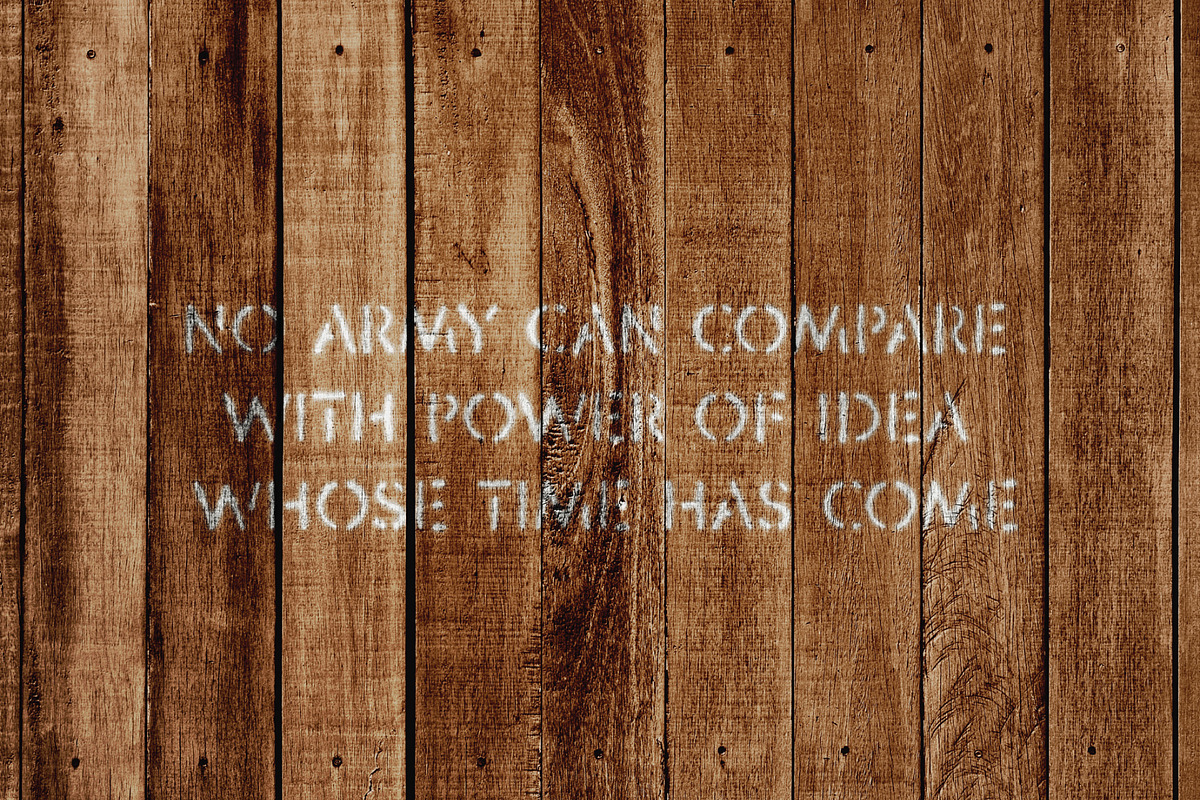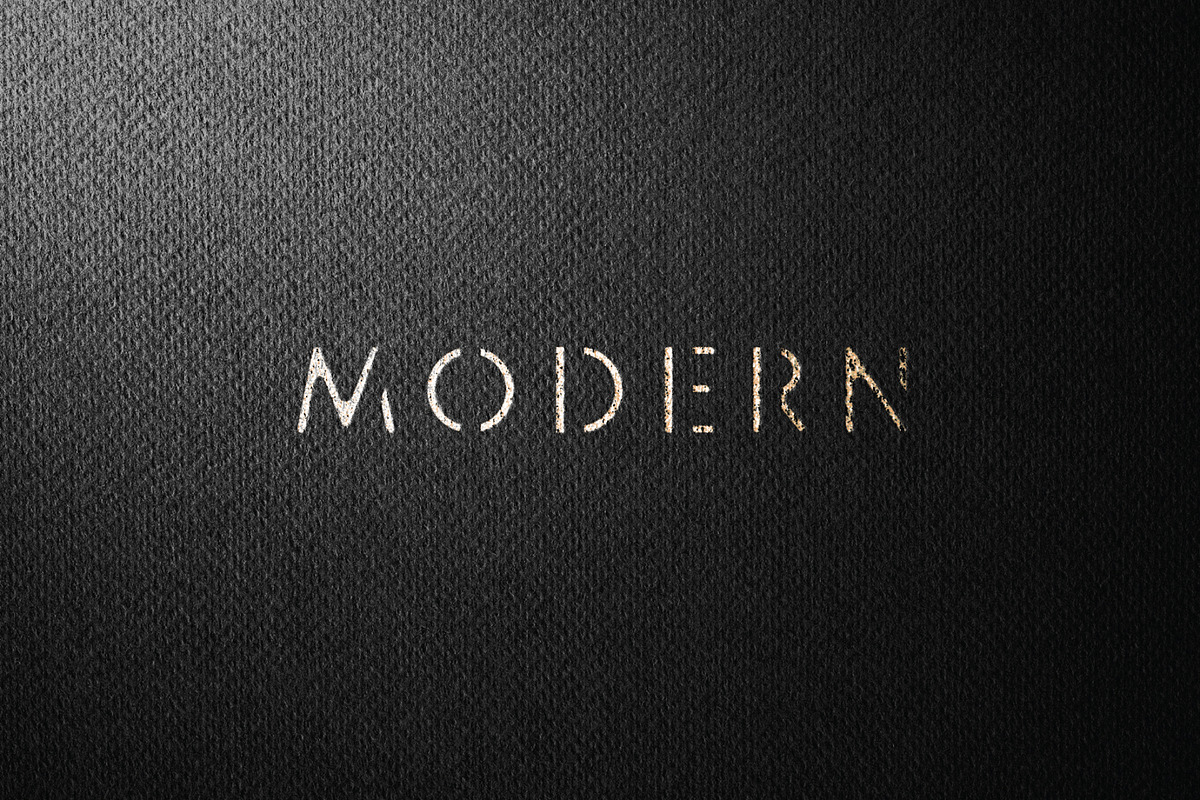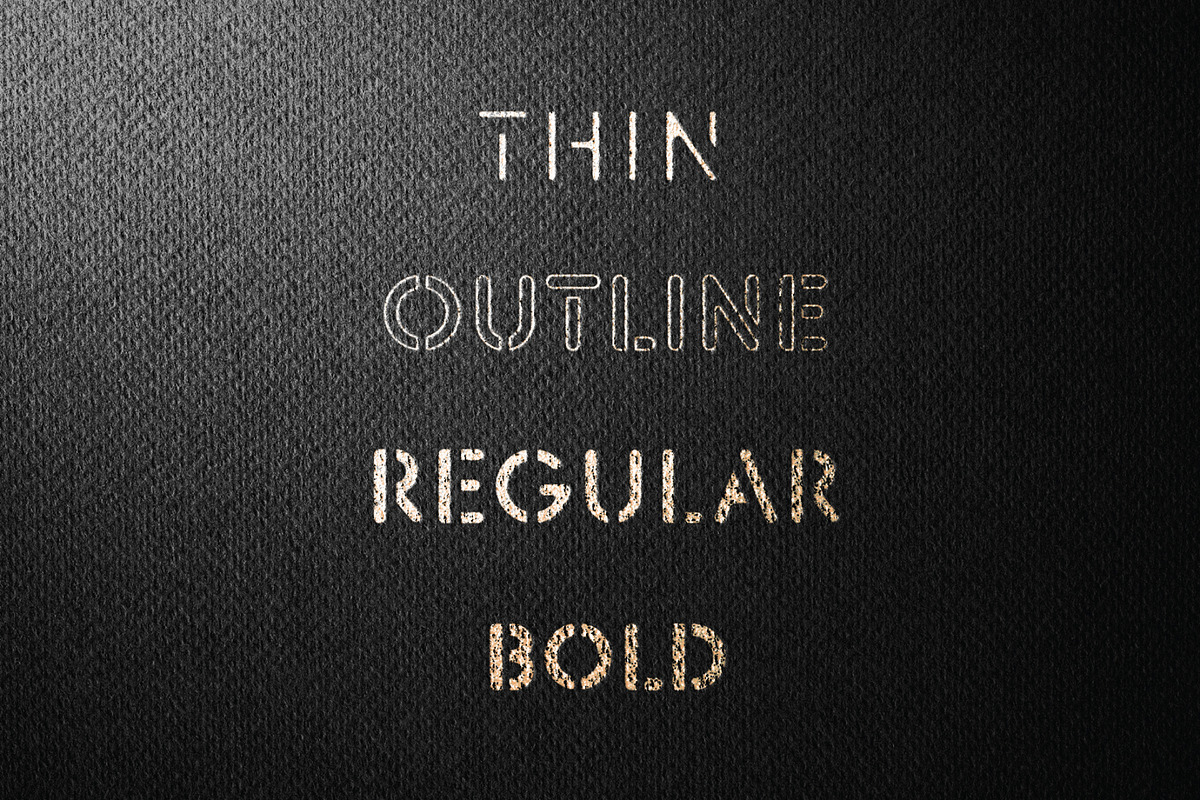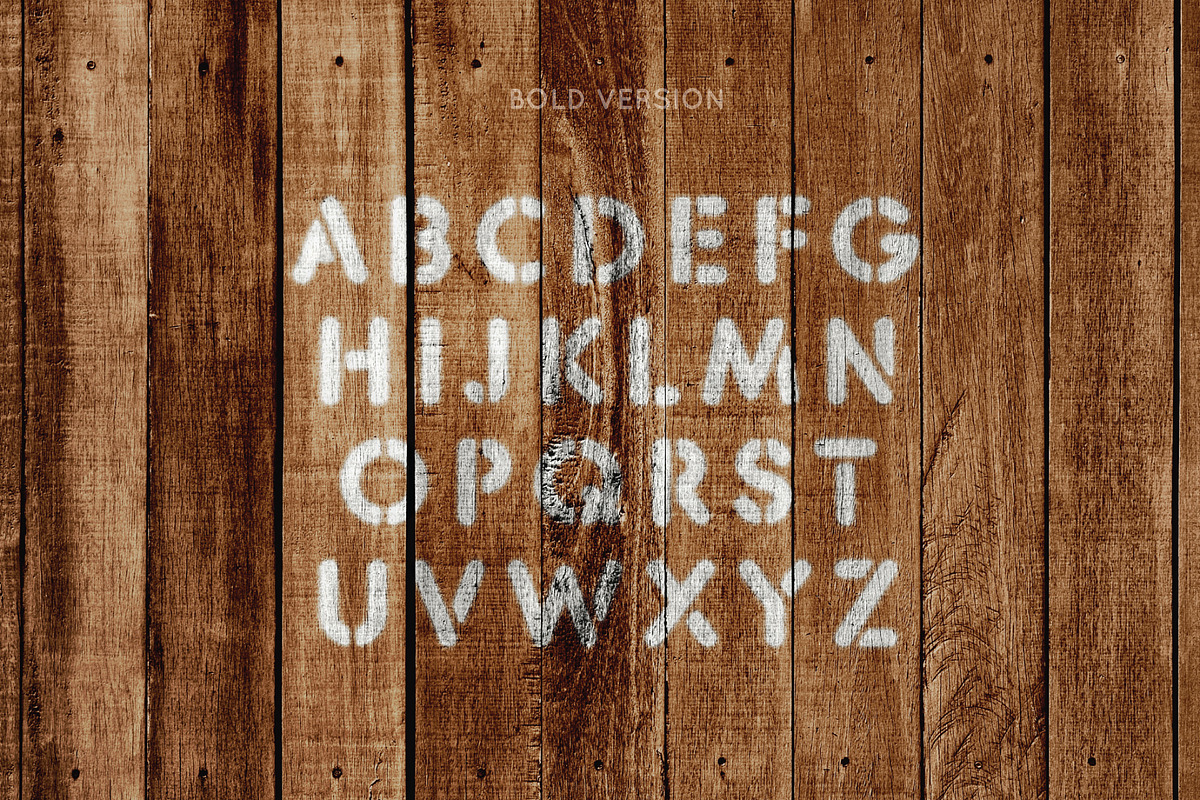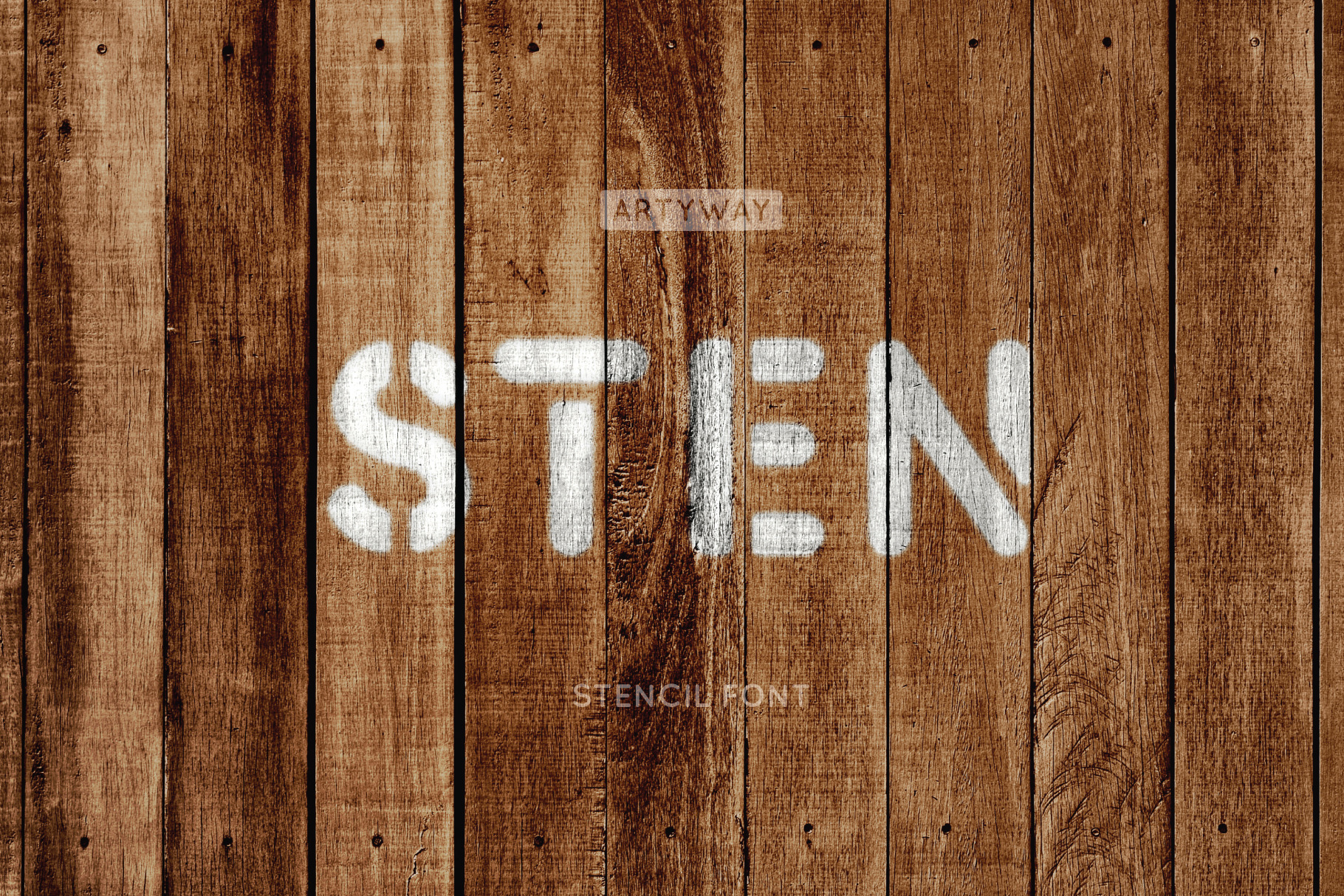
Stencil Headline Font
I suggest you to pay attention to the "Sten" font.
It includes several versions of different thicknesses to achieve the best effect.
Stencil font is ideal for militarized posters and lettering. Thin version is also excellent on textiles and ideal for the fashion industry.
As a bonus, the set has versions with torn edge that creates the effect of a grunge texture. It looks even more bold and dynamic.